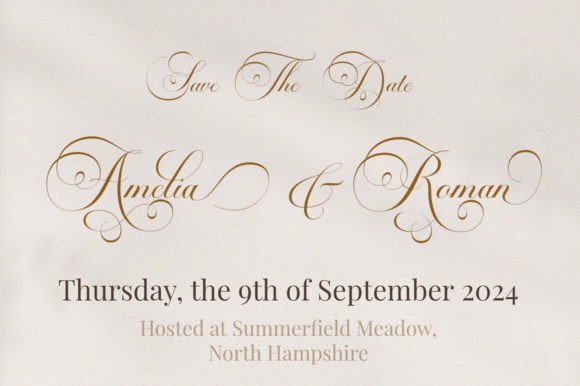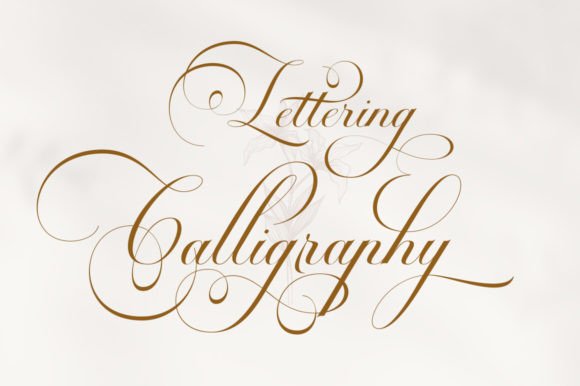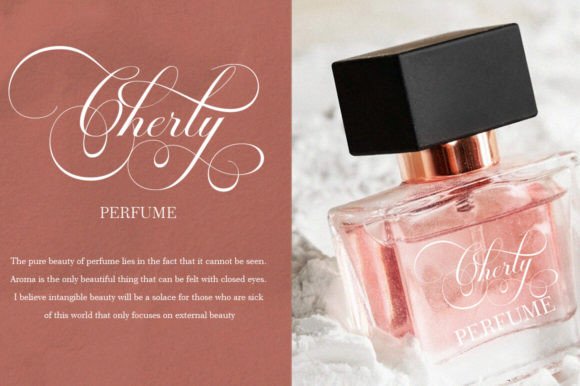
Blissful Font
Blissful Classic is a calligraphy font that comes with exquisite changing characters, a kind of classic decorative copper script with a modern touch, designed with high details to bring out the elegance of the style. Blissful Classic Calligraphy Font is attractive because the typeface is smooth, clean, feminine, sensual, glamorous, simple, and very easy to read, because of the many luxurious letter connections. The classic style is very suitable to be applied in various formal forms such as invitations, labels, restaurant menus, logos, fashion, makeup, stationery, novels, magazines, books, greeting/wedding cards, packaging, labels, or all kinds of advertising purposes.Blissful Classic Calligraphy Font is encoded with Unicode PUA, which allows full access to all additional characters without having to have special design software. Mac users can use Font Book, and Windows users can use Character Map to view and copy any of the additional characters to paste into their favorite text editor/application.